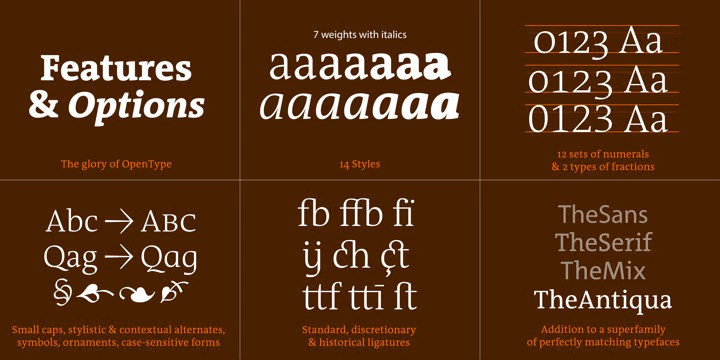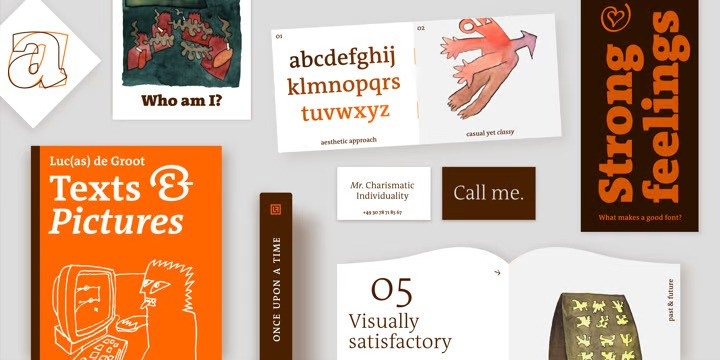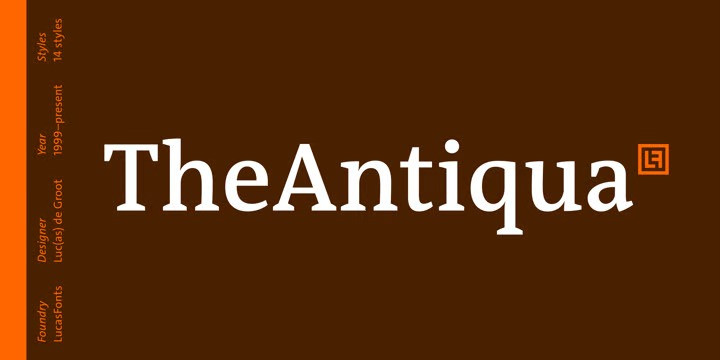
TheAntiqua Font
TheAntiqua Serif Font Family, Although the members of the Thesis family have proven to work well as text faces, nothing beats a medium-contrast oldstyle for comfortable immersive reading. Hence TheAntiqua, an all-purpose text face whose name refers to the traditional Dutch/German word for oldstyle.